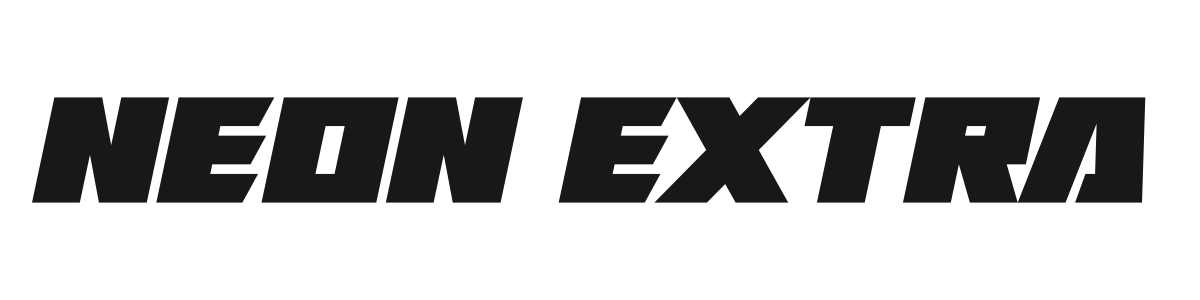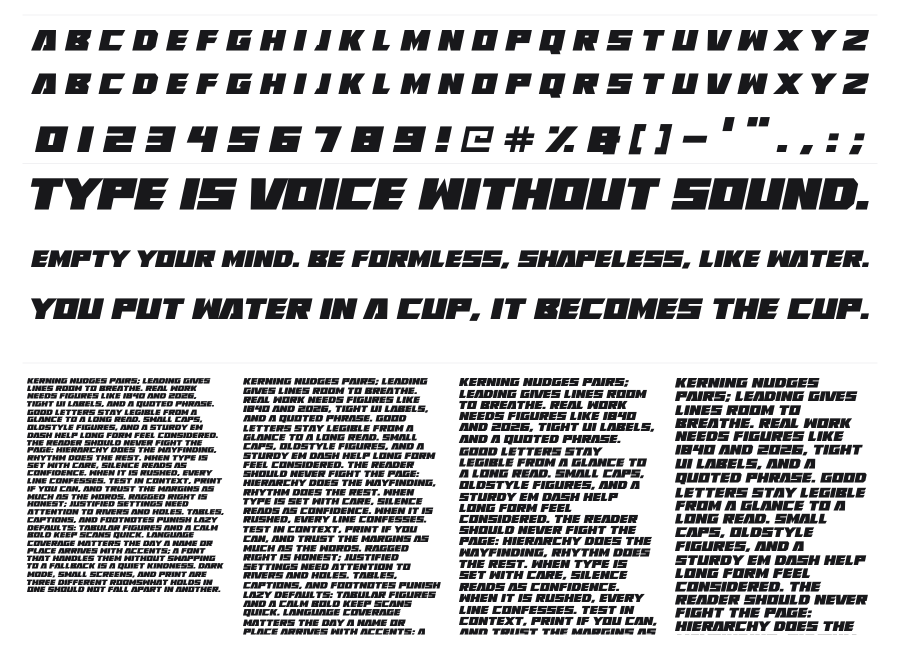
Neon Extra
Neon Extra is a heavy condensed italic sans-serif built for maximum impact at large sizes. Chopped angular terminals and a sharp forward slant give it a retro-futurist personality that sits comfortably in action, gaming, and sci-fi contexts. It hits hard in titles, posters, and anywhere a design needs raw kinetic energy.